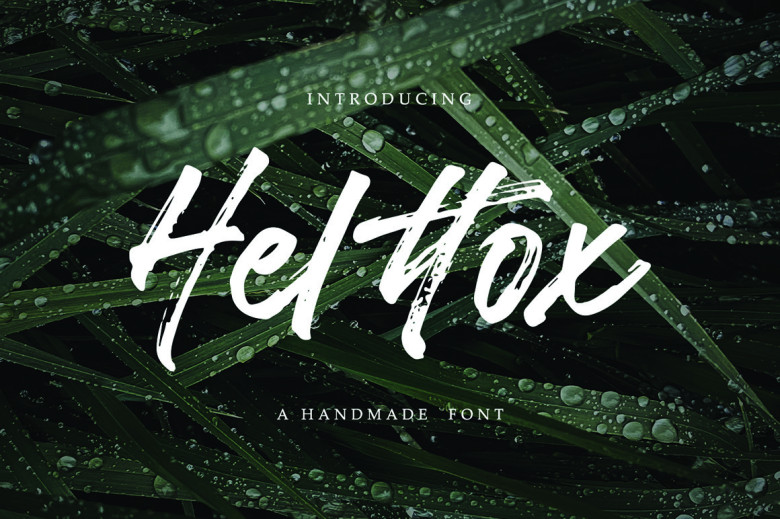
Helttox Font
Helttox is an inviting hand brush script font with lovely flow and texture, offering many alternatives for simulating genuine handwriting. There are four lowercase sets and two uppercase sets included with Helttox; making it suitable for logos, design projects branding posters quotes wedding invites stationery artwork social media tweets as well as adorable greeting cards as well as many other designs.
Helttox Brush Script Font